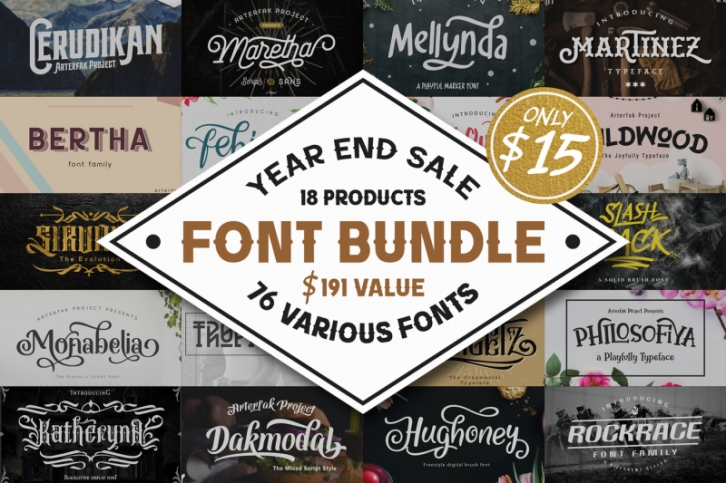
Greetings. Celebrate the year-end sale, We presenting our 3rd font bundle. The collection of 70+ various fonts from 18 products, now in 1 bundle. This bundle also containing best selling items likeBertha, Monabelia, Philosofiya, Rockrace and Hughoney font. $191 value for only $15! Most fonts in this bundle are recommended for display, headline or titling. Other items also good for body text and editorial.
This font bundle containing diverse font styles :
• Script Font
• Black letter font
• Serif Font
• Sans Serif font
• Serif font
There are tons of OpenType features like Stylistic alternates, contextual alternates, Stylistic sets, and custom ligatures that you can access to gives you many options in your design project. Also featured up to 23 accents.